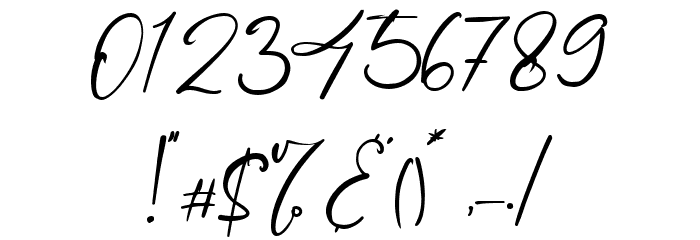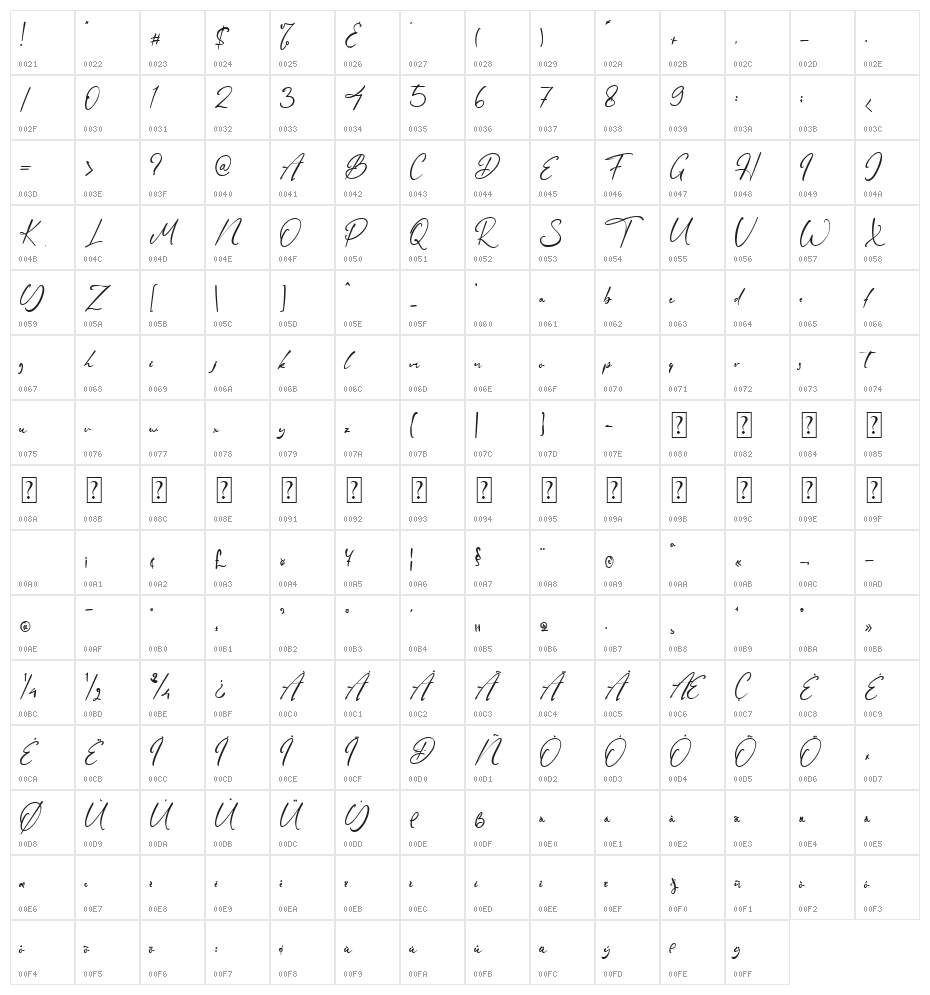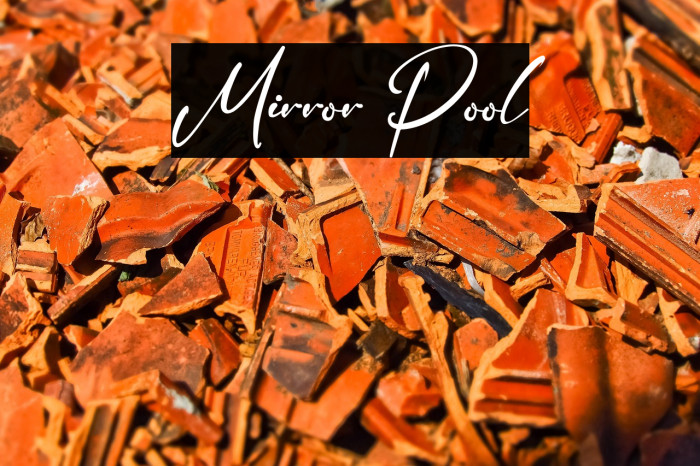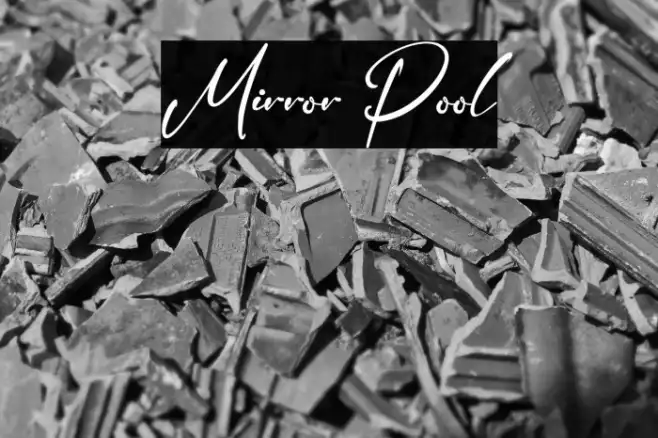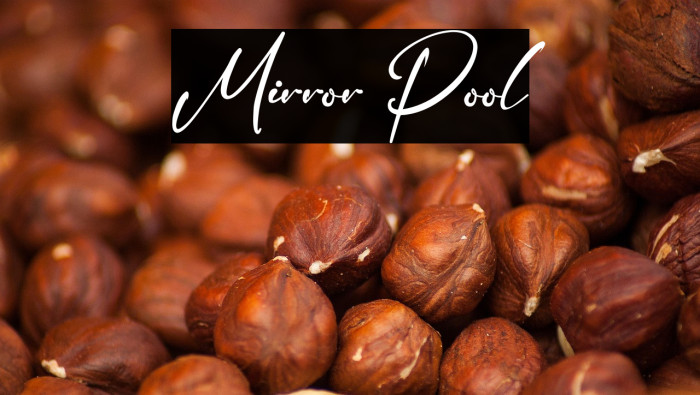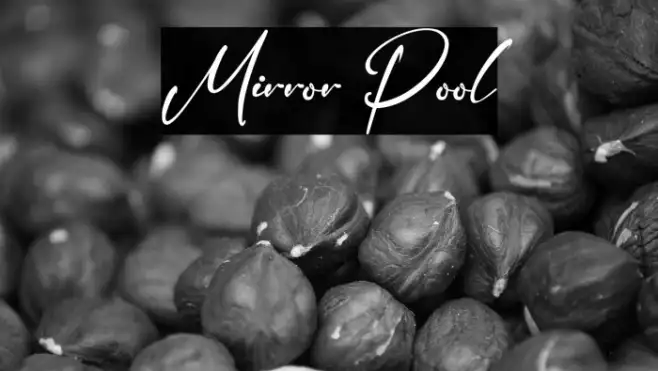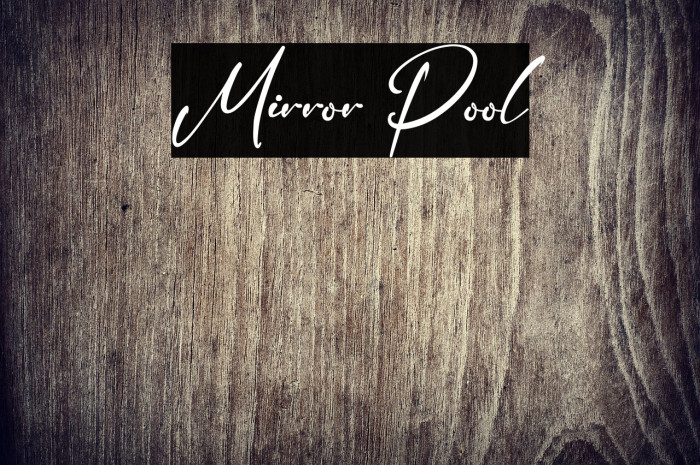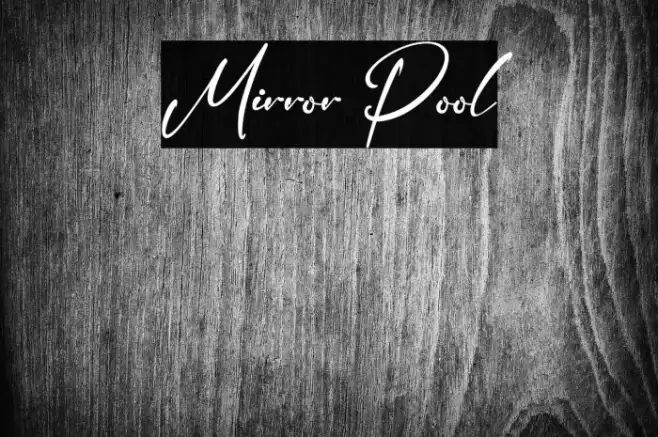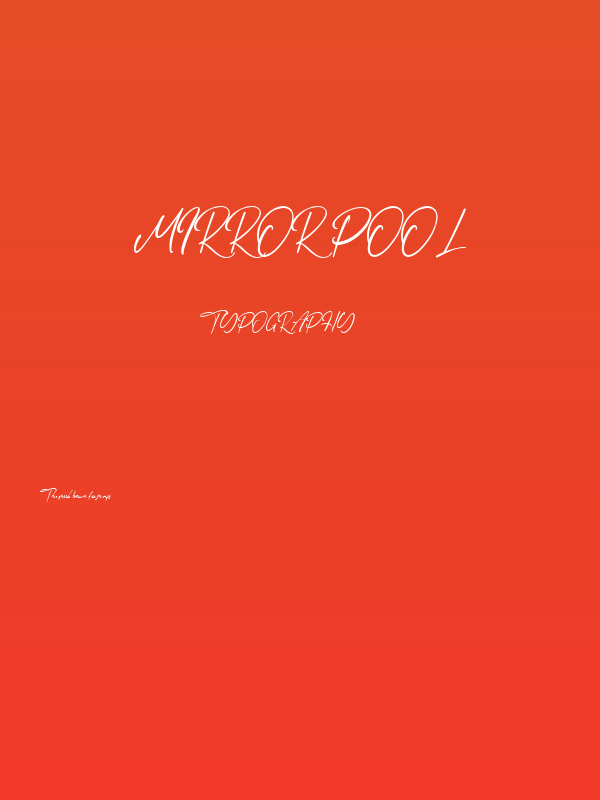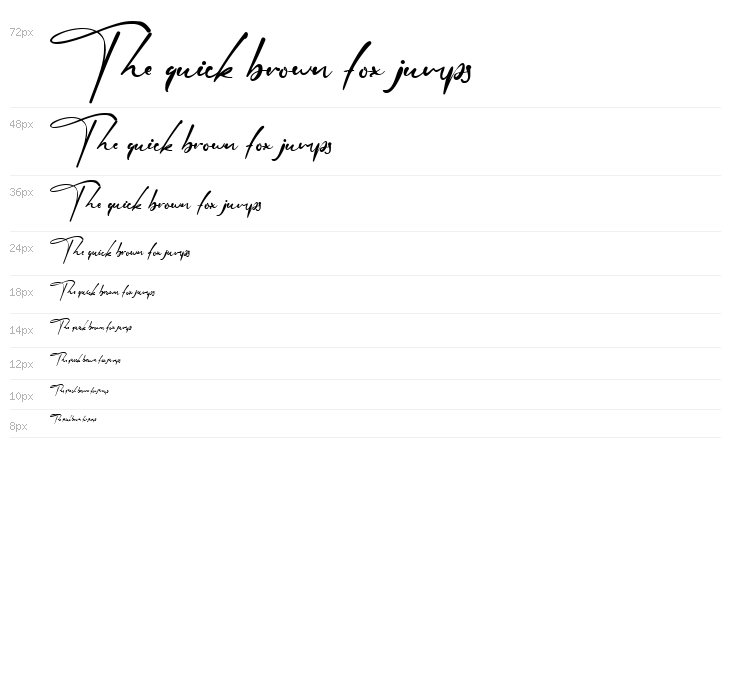
Mirror Pool Font
Mirror Pool Description
This elegant script font features a fluid and graceful style, characterized by its sweeping curves and delicate strokes. The uppercase letters are bold and expressive, with a sense of movement that suggests a handwritten touch. The lowercase letters maintain a consistent flow, enhancing readability while retaining an artistic flair. Numbers and special characters are designed with the same attention to detail, ensuring a cohesive look across all elements. The font's overall appearance is sophisticated and stylish, making it suitable for projects that require a personal and elegant touch.
| Overall Style | Elegant and Artistic |
| Proposed Projects | Ideal for wedding invitations, greeting cards, branding, and elegant packaging designs. |